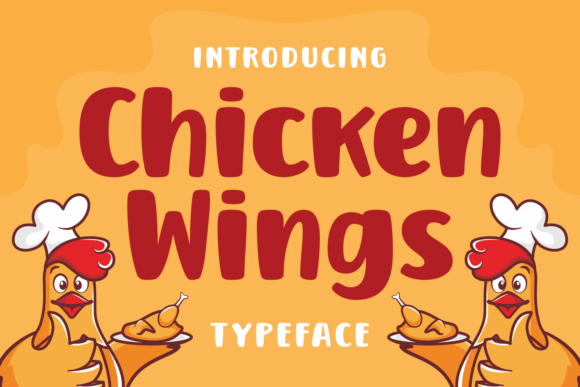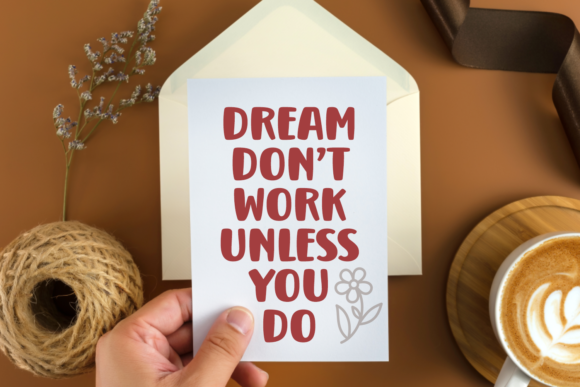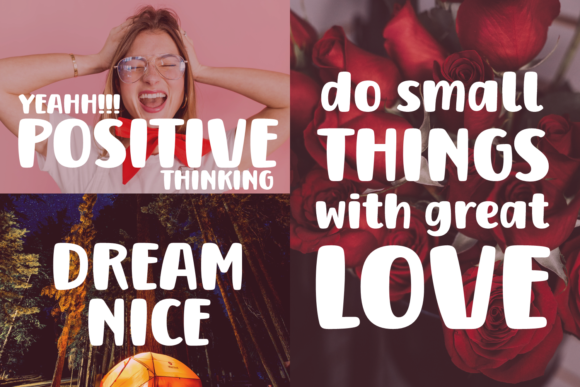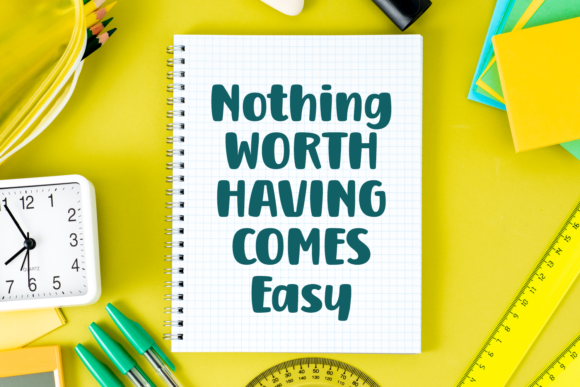
Get Ready to Spice Up Your Designs with Chicken Wings Font
You know that moment when a spark of creativity strikes, and you envision the perfect design for your next project? It’s like a flavor explosion in your brain, and you can’t wait to bring it to life! For designers, creatives, and crafty folks, that moment often comes when they’re searching for the perfect font to match their artistic vision. That’s where the delightful Chicken Wings Font comes in – a fun and thick lettered display font that’s sure to add a dash of excitement to your projects.
This versatile font is perfect for crafting, digital designing, presentations, and even greeting cards making. With its playful charm, it’s easy to see why designers love incorporating Chicken Wings Font into their work. Whether you’re a seasoned pro or just starting out, this font is sure to become a go-to favorite in your design arsenal.
- Unique Characteristics: The font features a unique blend of bold and playful lines, making it ideal for food-related branding, packaging, and advertising.
Chicken Wings Font Review
Overall, I have mixed feelings about the “Chicken Wings Font”. It’s a unique and quirky font, but it also has its limitations.
- The font’s playful and casual vibe is perfect for food-related projects, like restaurant menus or social media promotions.
- The font’s irregular shapes and bold lines add a fun, hand-drawn feel that can make text more engaging and attention-grabbing.
- The font’s legibility is surprisingly good, making it easy to read even in smaller sizes.
- The font’s lack of sophistication and elegance makes it less suitable for formal or professional projects.
- The font’s irregular shapes can make it difficult to pair with other fonts, as it may clash with more traditional or serif fonts.
- The font’s limited character set and poor support for non-English languages may be a hindrance for some users.
Overall, I would recommend the “Chicken Wings Font” for casual, creative projects where a playful and quirky vibe is desired. However, for more formal or professional projects, I would suggest looking elsewhere.
The “Chicken Wings Font” is ideal for creating playful, whimsical designs, such as:
– Food blogs or restaurant menus
– Party invitations or promotional materials
– Social media graphics or advertisements
For optimal results, pair the “Chicken Wings Font” with bold, bright colors and playful graphics to create a fun and engaging visual experience.